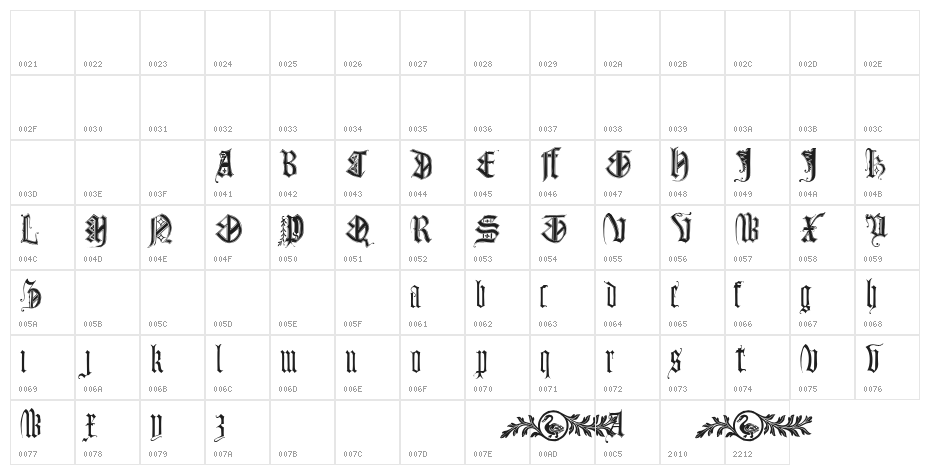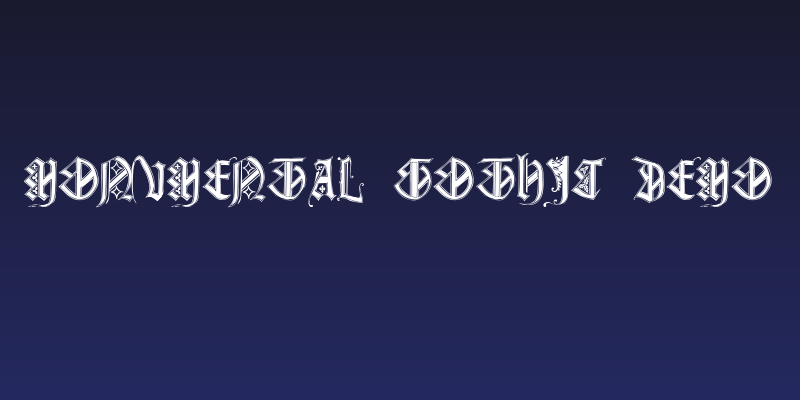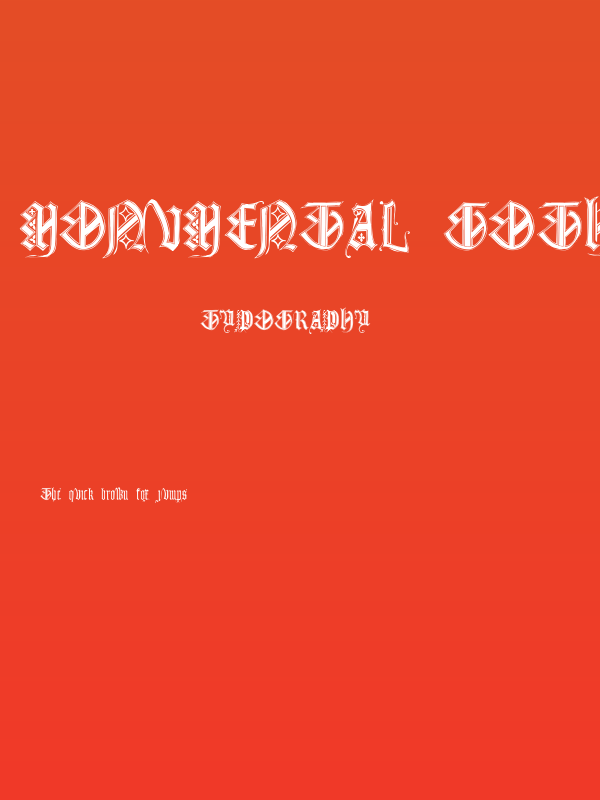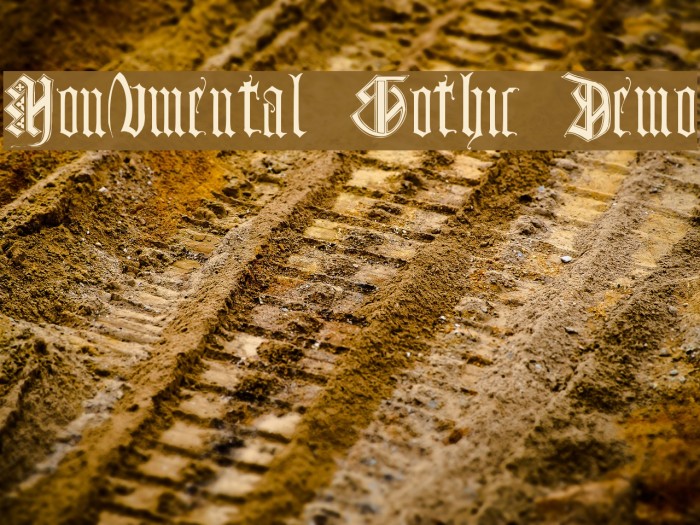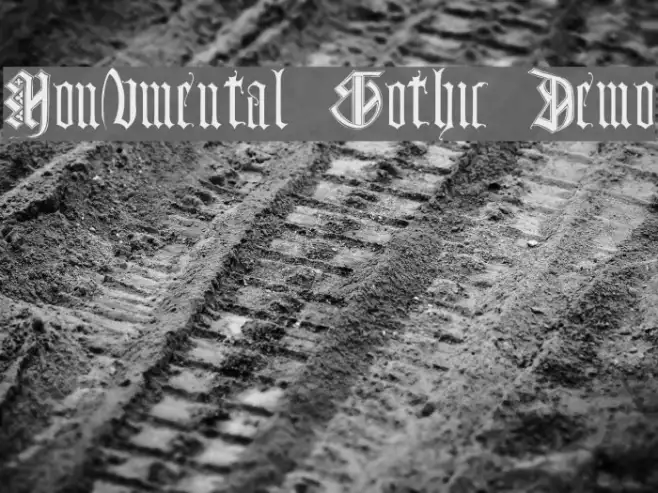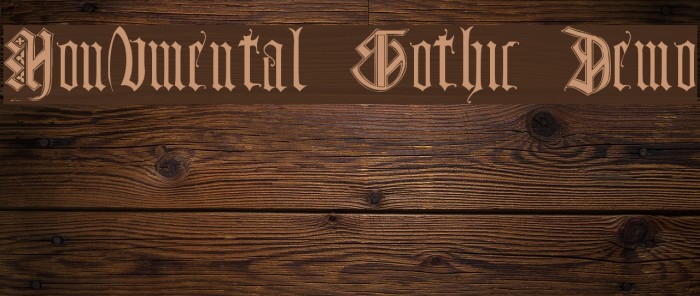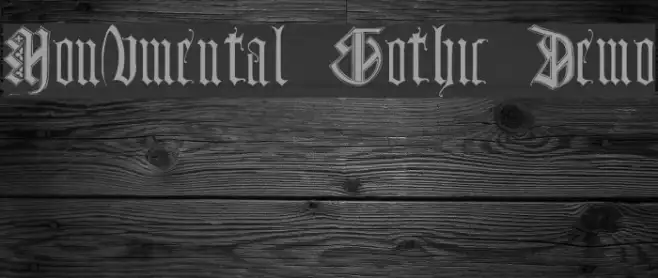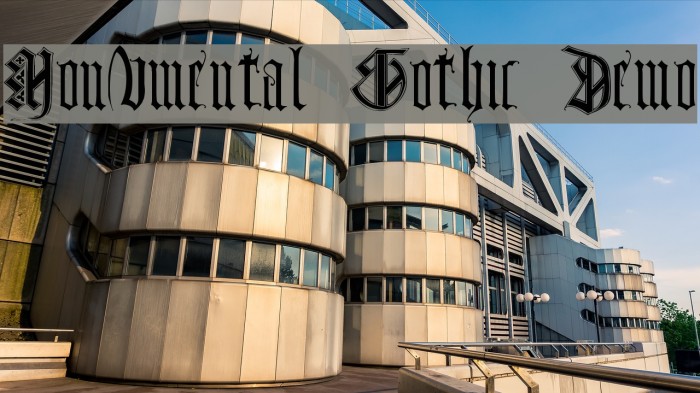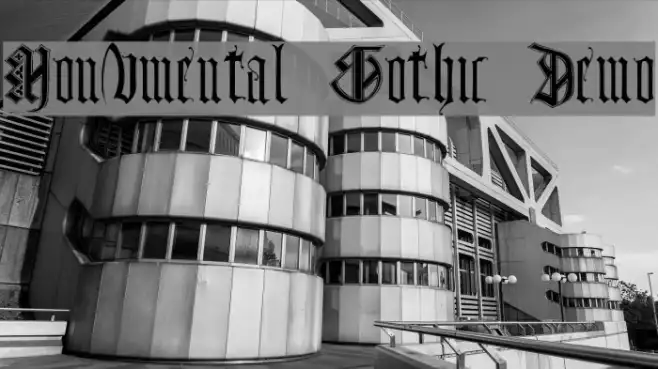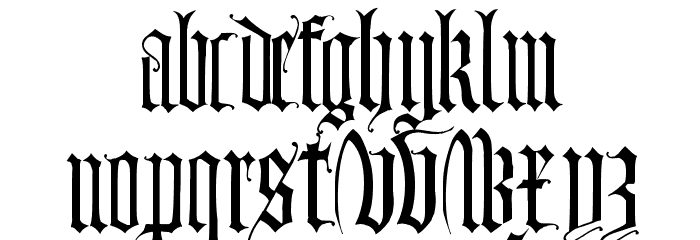
Monumental Gothic Demo Font
| Projets proposés | Ideal for use in historical themed projects, book covers, posters, and branding that requires a medieval or elegant touch. |